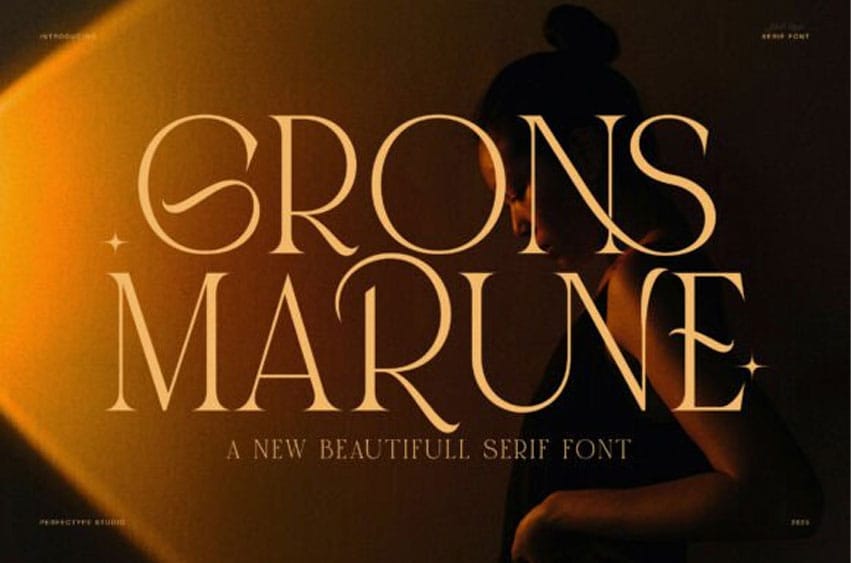
Grons Marune Font is an elegant serif font that blends timeless beauty with modern craftsmanship. Every curve and serif carries intention, balance, and refined artistry. Because of its delicate contrast and graceful rhythm, this typeface brings a luxurious cinematic feel to every composition.
Moreover, Grons Marune Serif Font combines sophistication with versatility. Its smooth letterforms and refined details make it perfect for both minimal and bold layouts. When used in branding, it evokes confidence and prestige, while in editorial work, it adds a touch of poetic character.